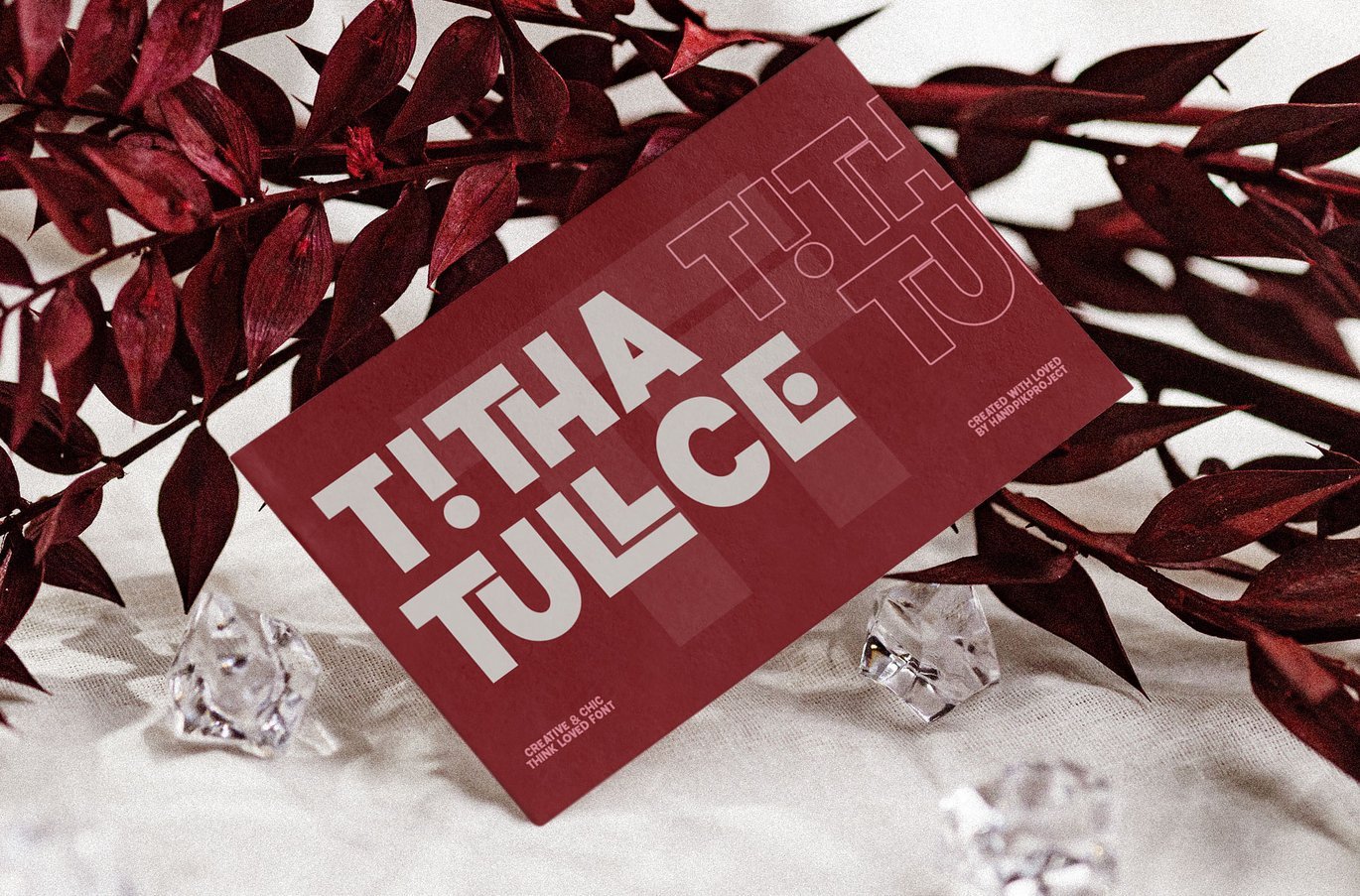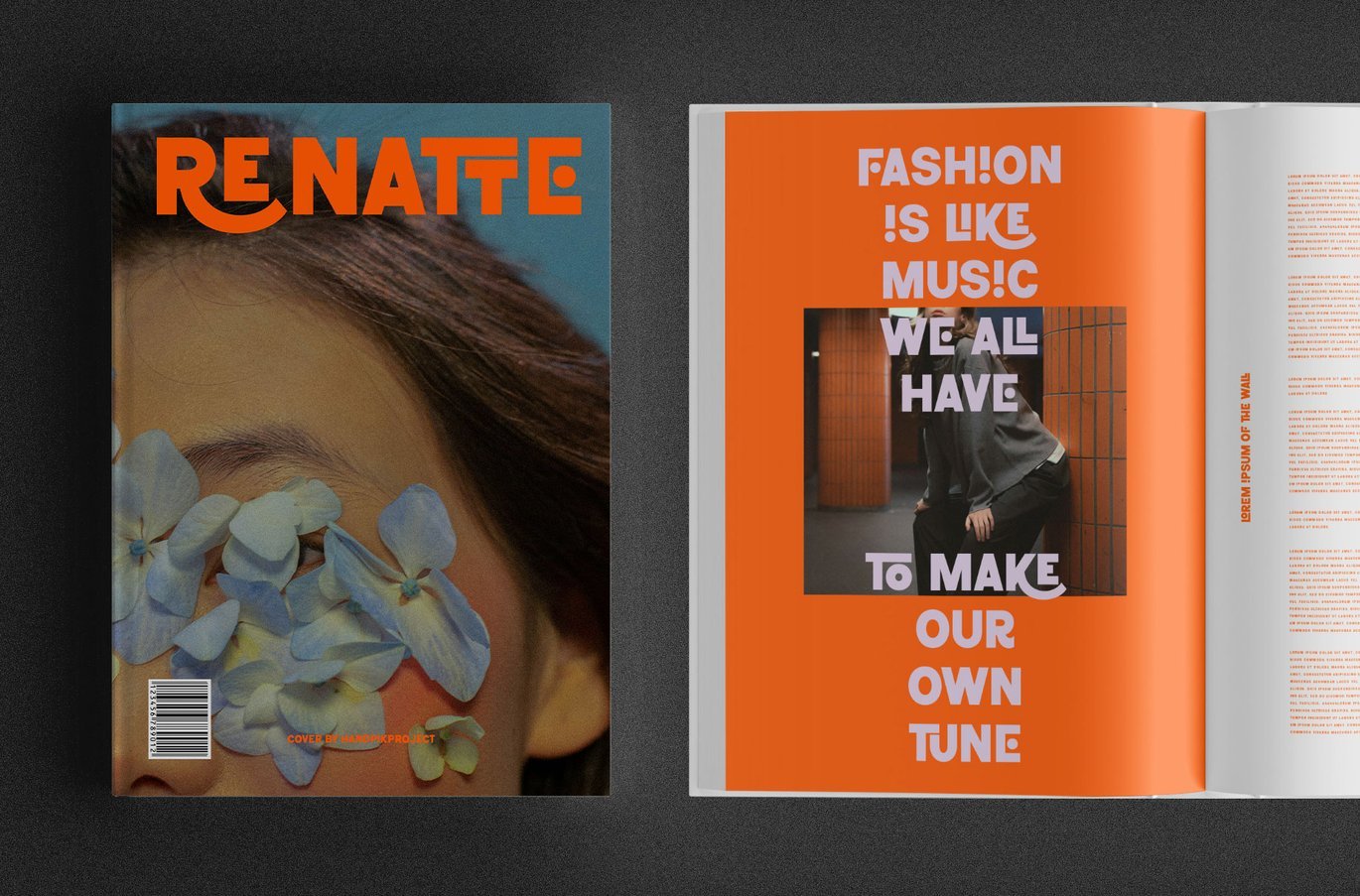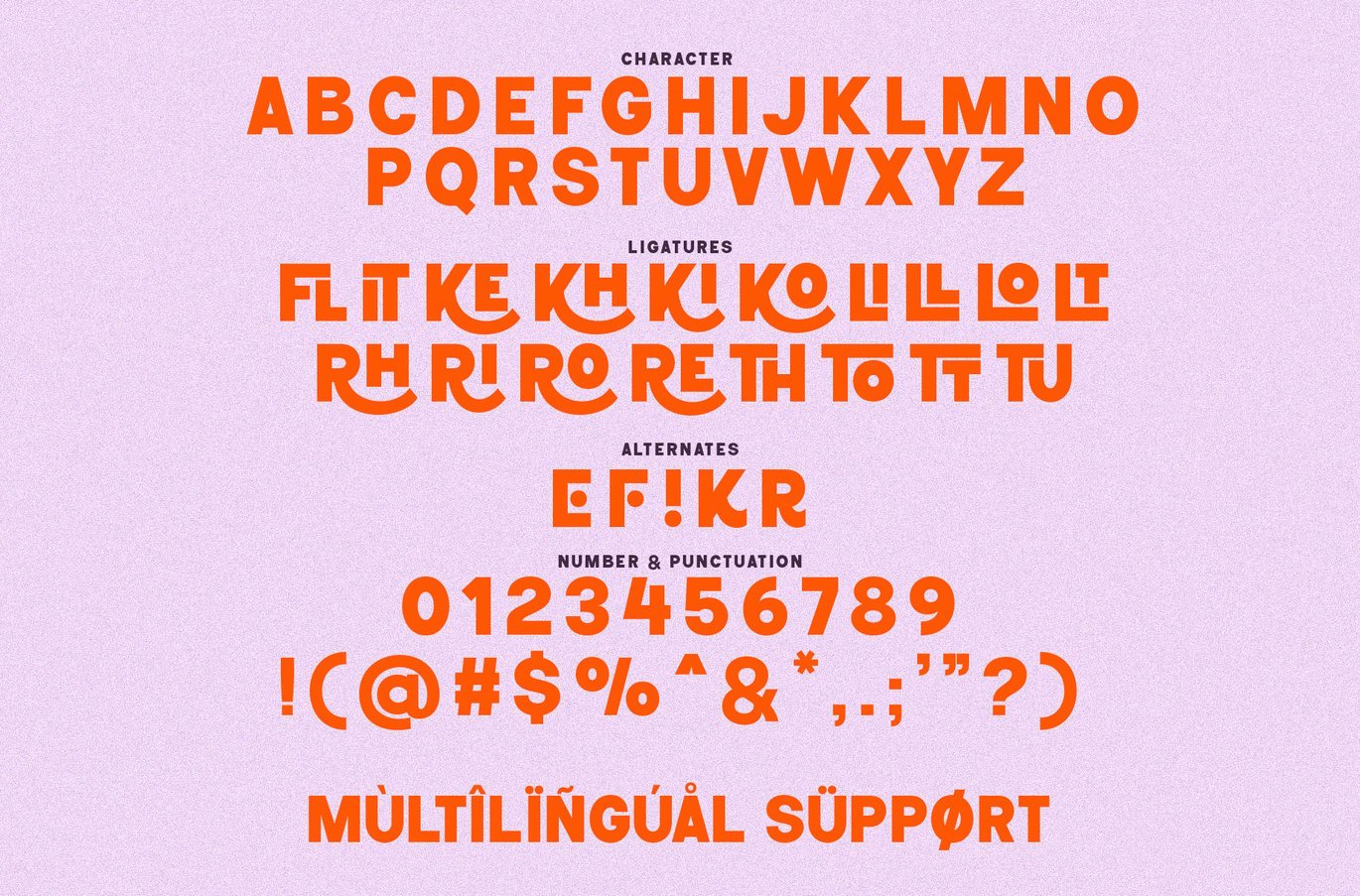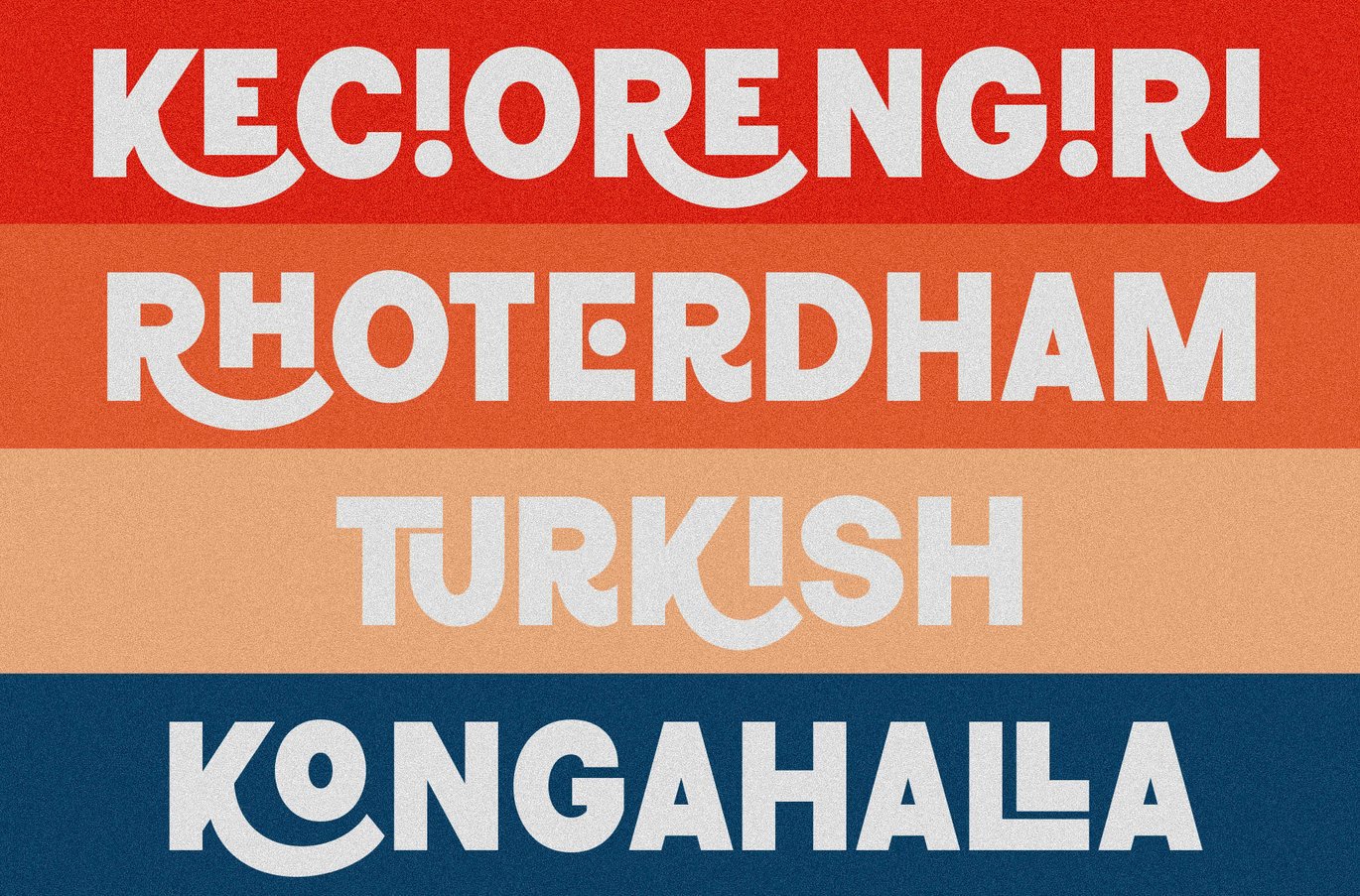
Think Loved Font
Handpikproject
Think Loed will perfect for many project: book, magazines, logo, branding, photography, quotes, blog header, poster, advertisements, etc.